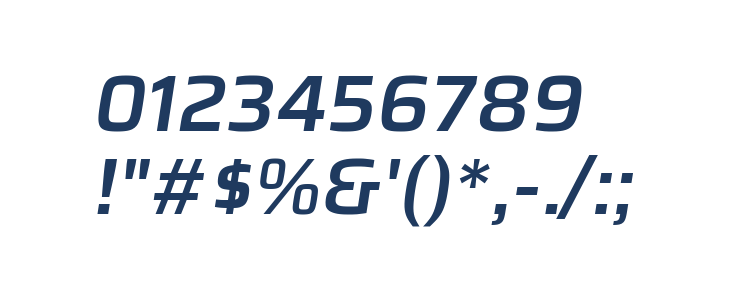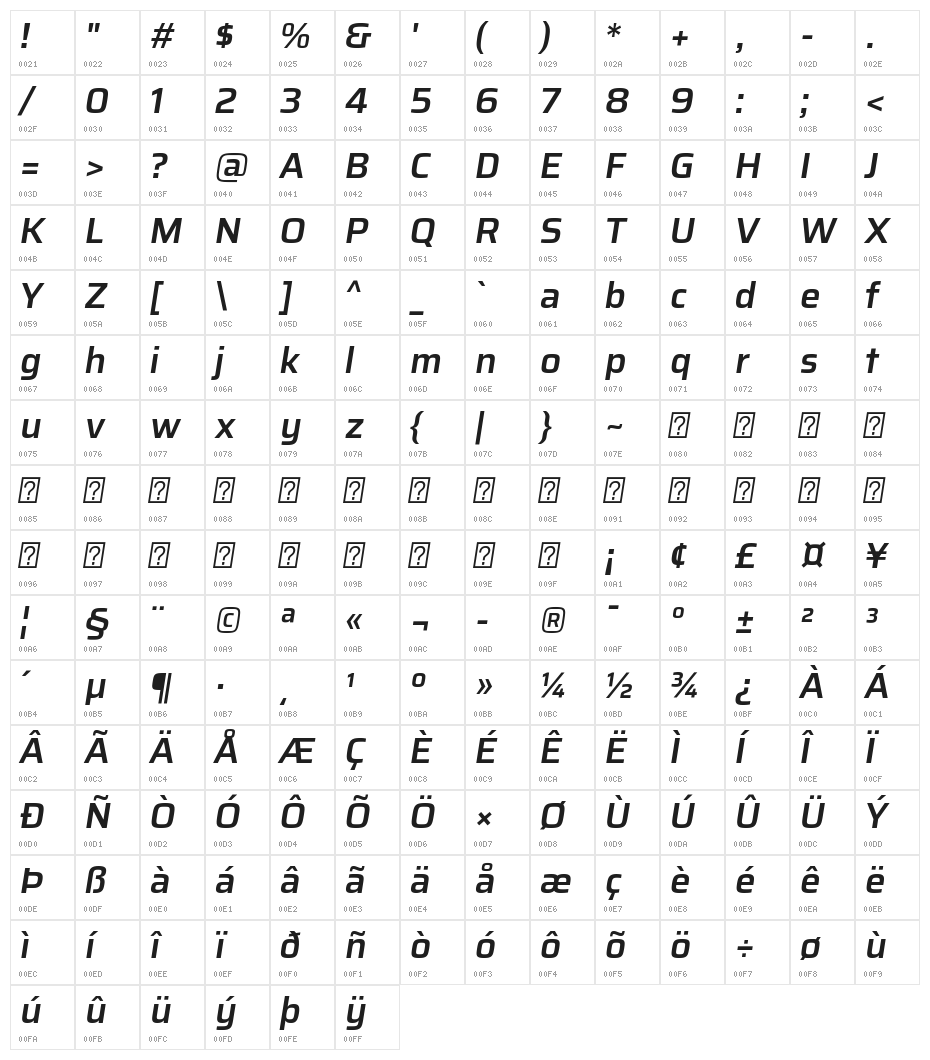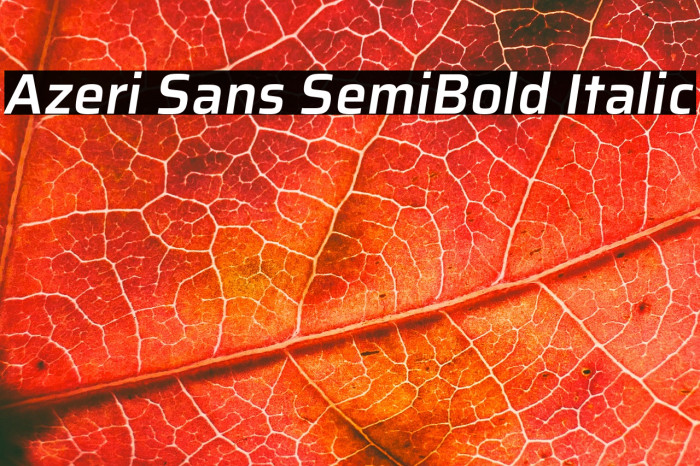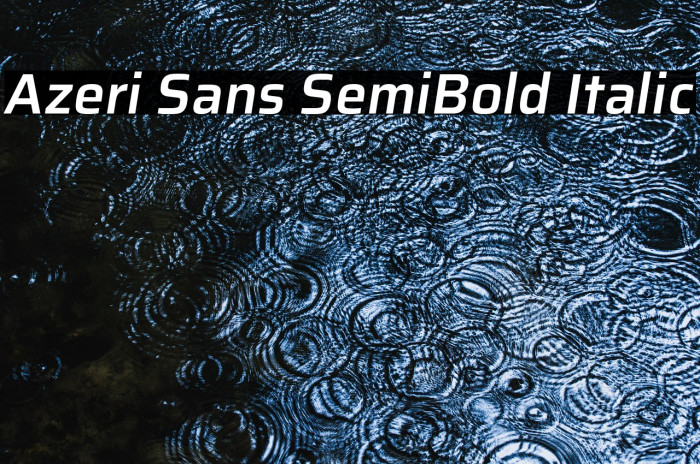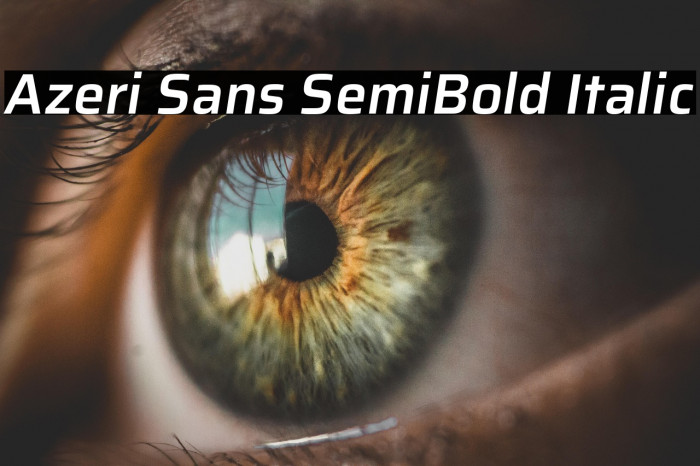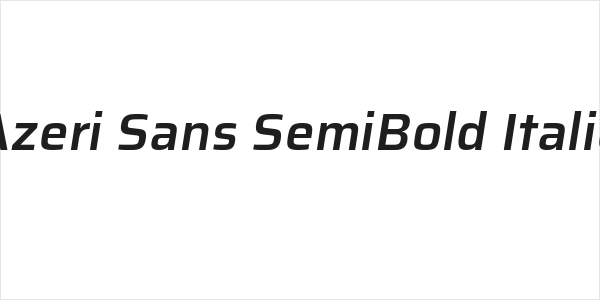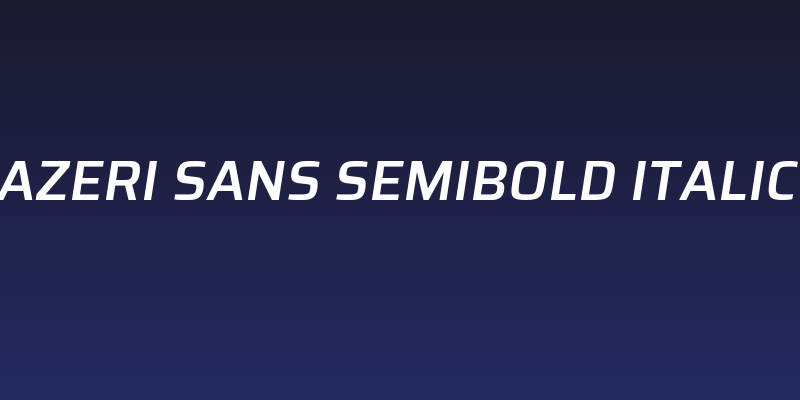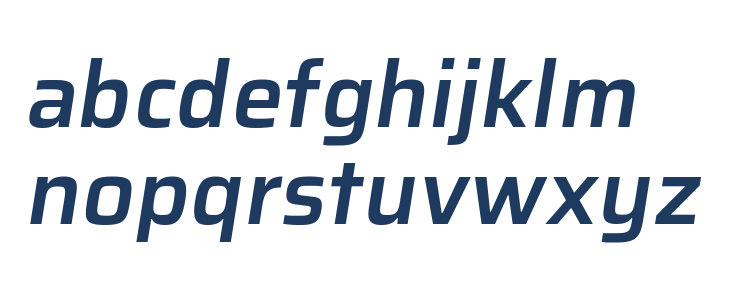
Azeri Sans SemiBold Italic Font
Azeri Sans SemiBold Italic Description
This font exhibits a modern and sleek design with a sans-serif style that emphasizes clarity and readability. The semi-bold weight provides a strong presence without being overwhelming, making it suitable for various applications. The italic slant adds a dynamic and forward-moving feel, enhancing its contemporary appeal. The characters are well-proportioned with consistent stroke widths, contributing to a clean and professional look. The spacing between characters is balanced, ensuring legibility across different sizes. This font is versatile, fitting well in both digital and print media, and can be used effectively in branding, advertising, and editorial design.
| Proposed Projects | Ideal for branding, advertising, editorial design, and digital media projects. |